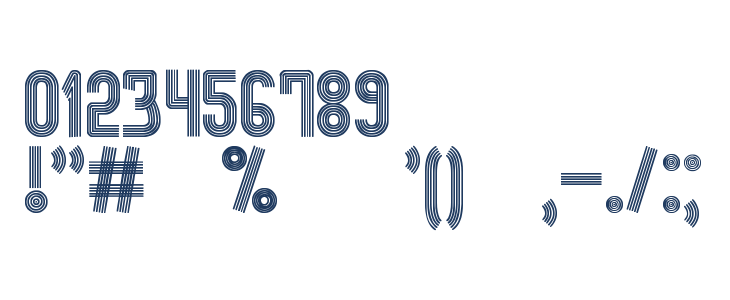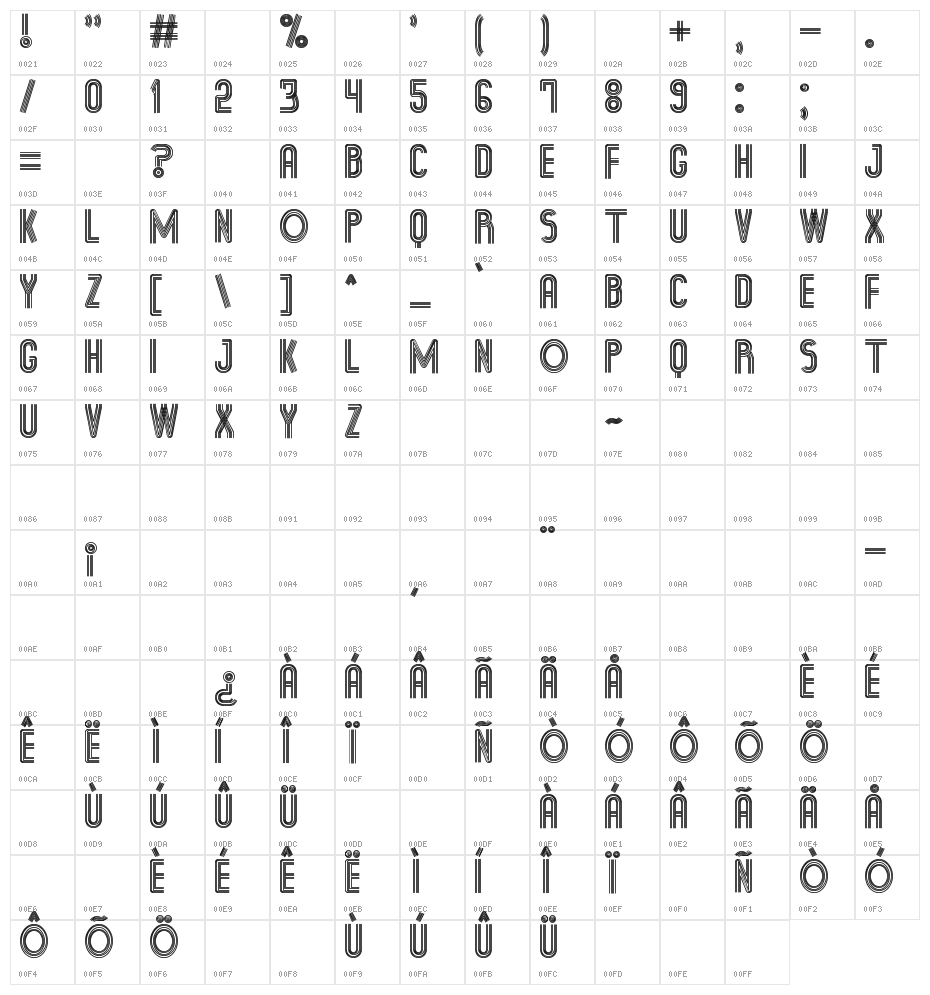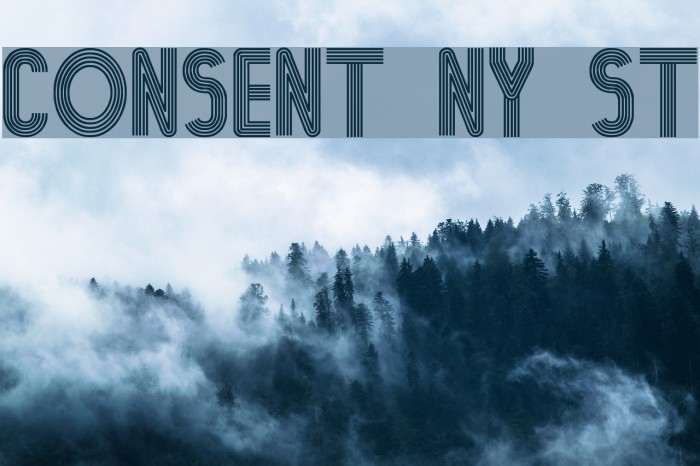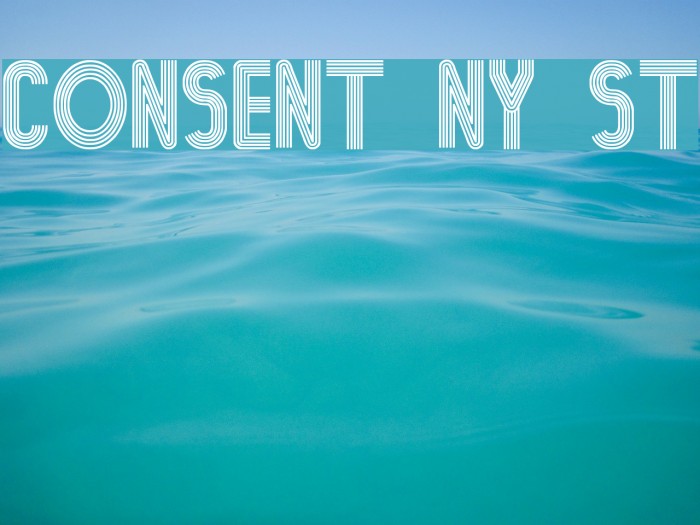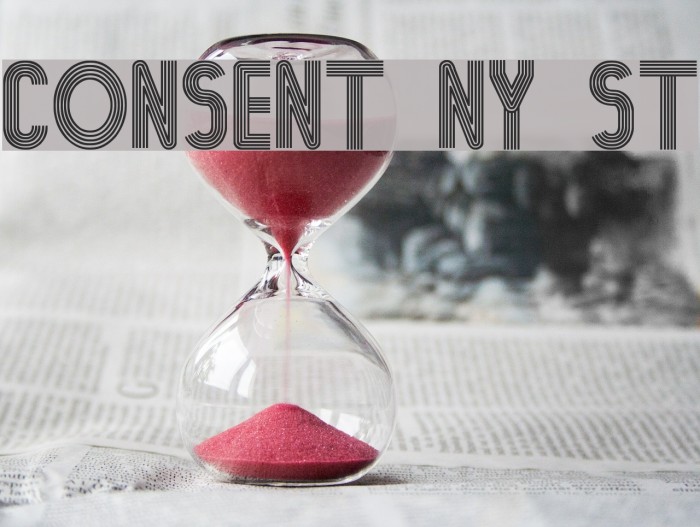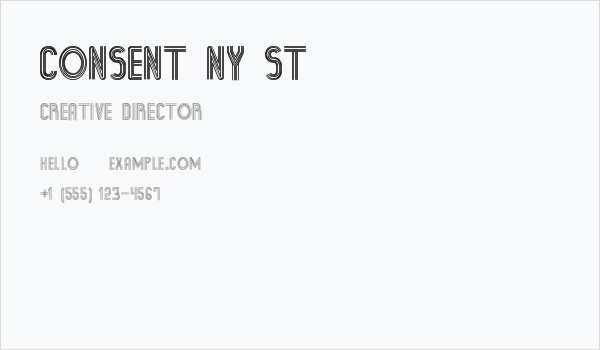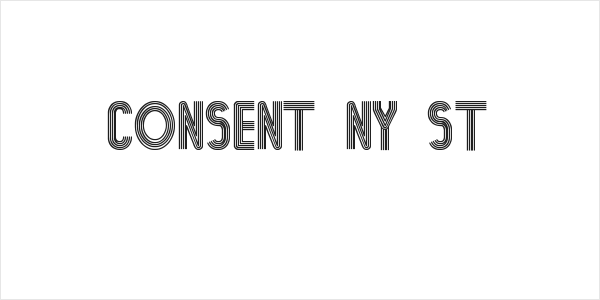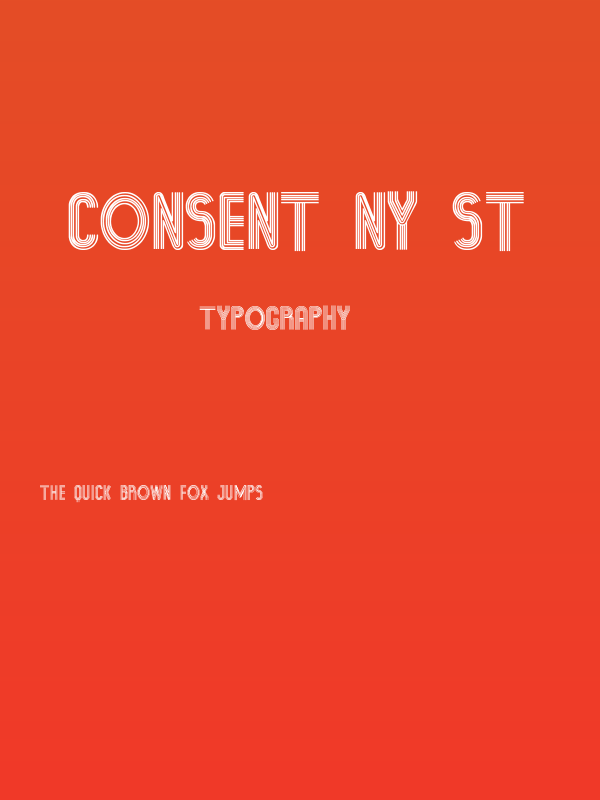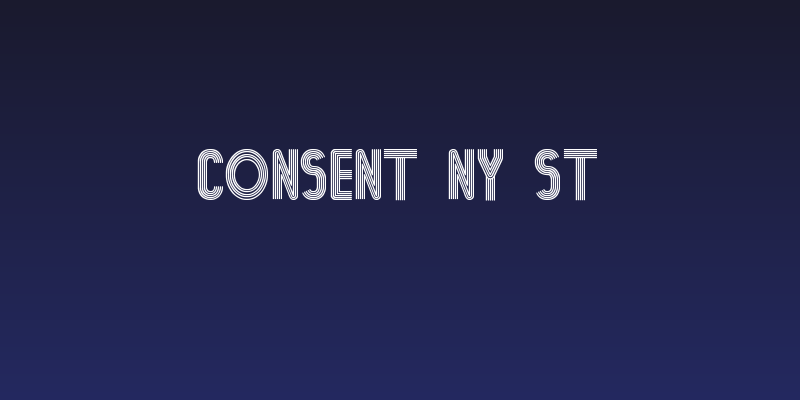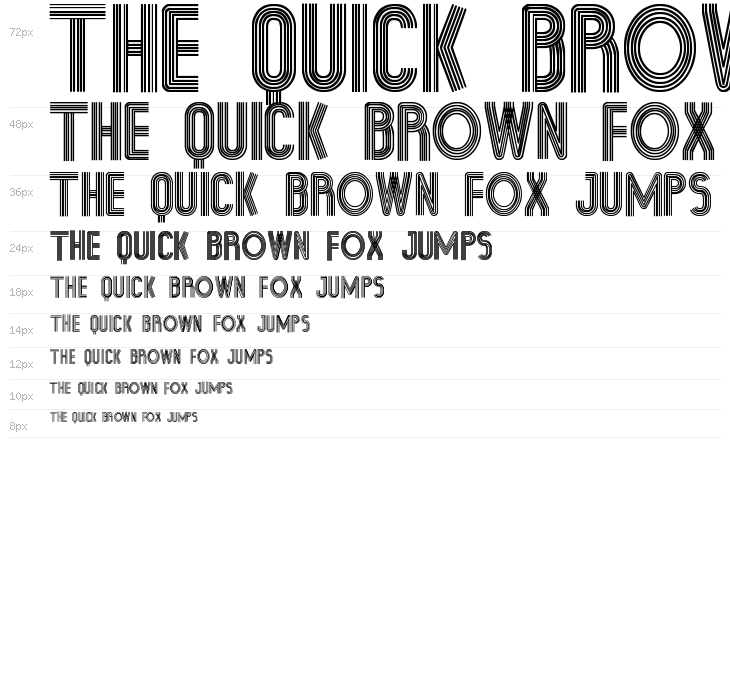
Consent Ny St Font
Consent Ny St Description
This font features a bold and striking design with multiple parallel lines forming each character, creating a sense of depth and movement. The geometric structure is consistent across uppercase and lowercase letters, as well as numbers and special characters. The lines are evenly spaced, giving the font a clean and organized appearance. The style is reminiscent of art deco and modern design, making it suitable for projects that require a bold and eye-catching typeface. The uniformity in line thickness and spacing contributes to a harmonious and balanced look.
| Proposed Projects | Ideal for posters, branding, headlines, and any design requiring a bold, modern aesthetic. |